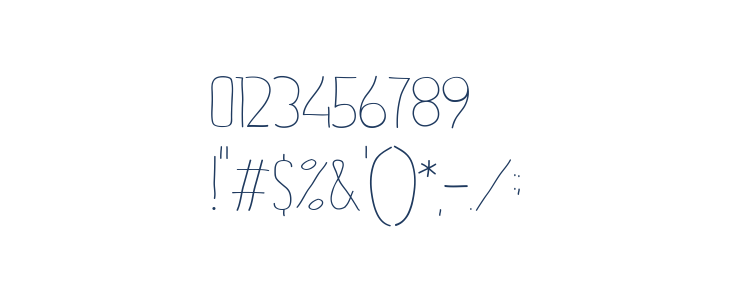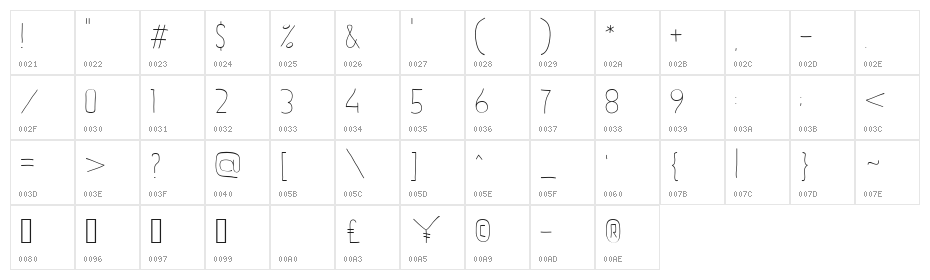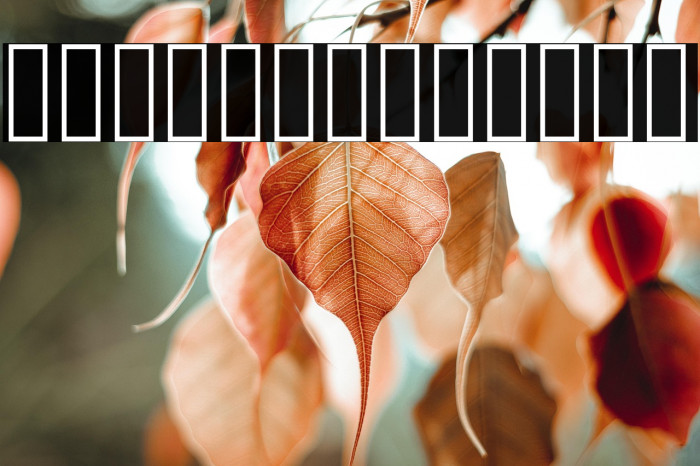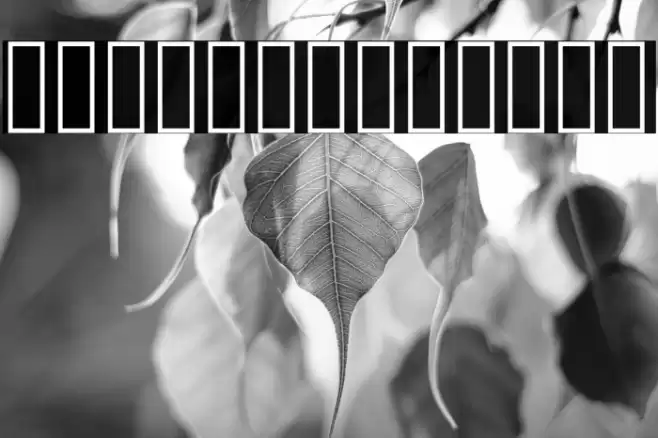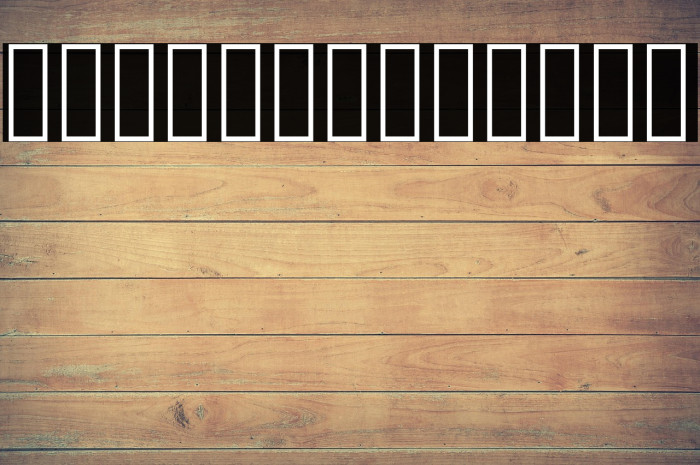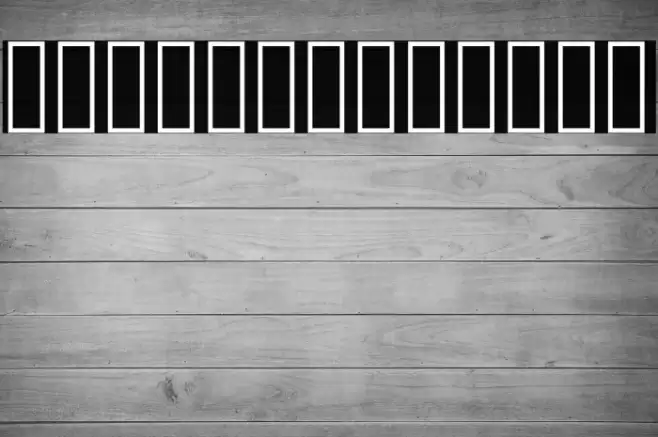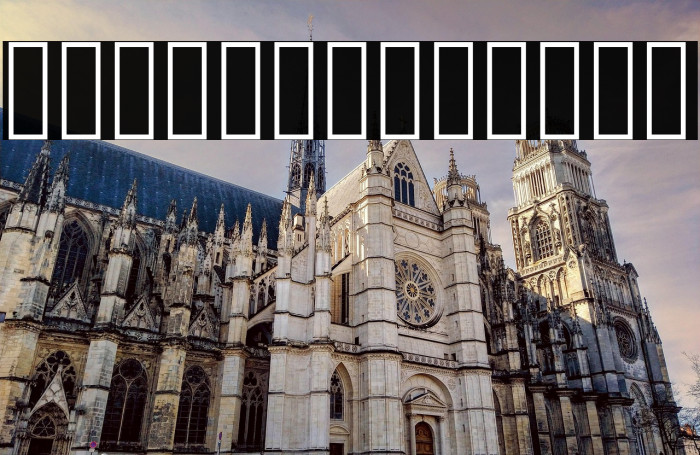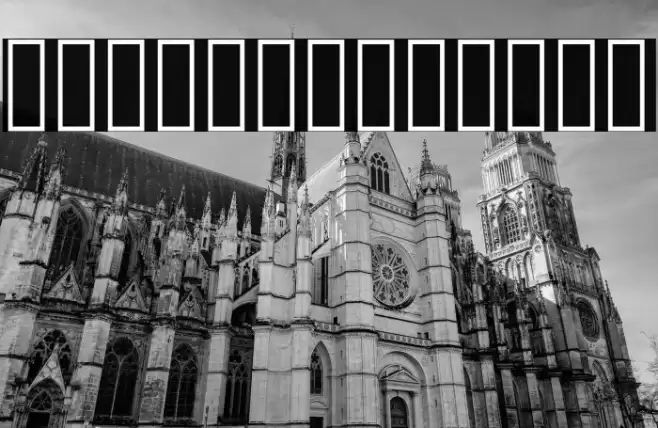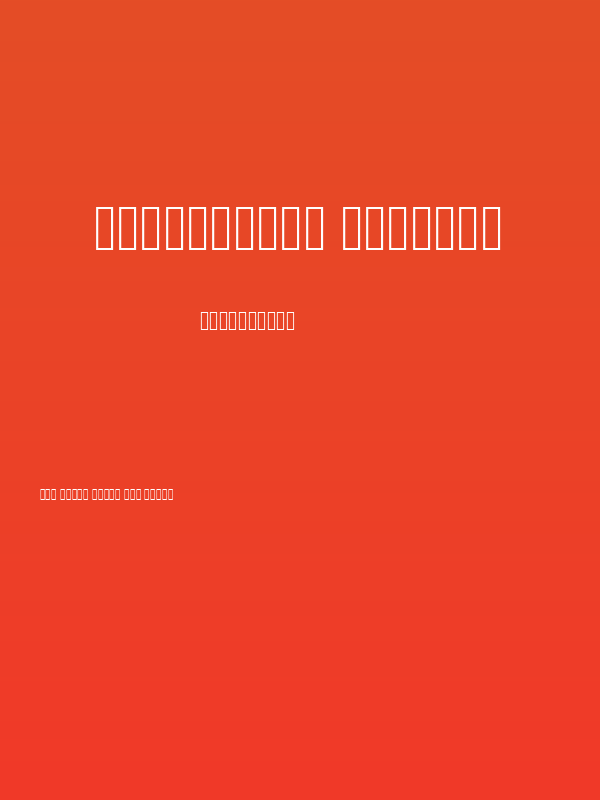
PtilNarrow Regular Font
PtilNarrow Regular Description
This font features a distinctively narrow and elongated design, with characters that exhibit a playful and whimsical style. The strokes are thin and consistent, giving it a light and airy appearance. The numerals and special characters maintain the same slender quality, contributing to a cohesive overall look. The font's unique character shapes and narrow width make it stand out, while still being legible and functional. Its modern and artistic flair is suitable for creative projects that require a touch of elegance and individuality.